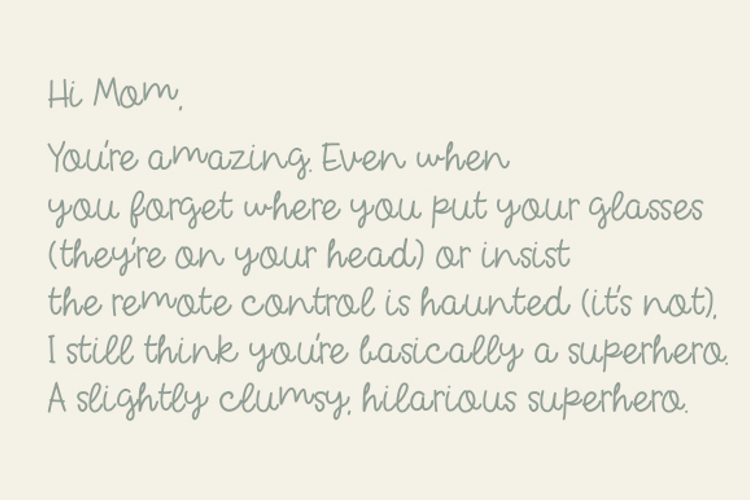
Notebooked Font
Introducing Notebooked Font , a mesmerizing new typeface inspired by the tender ache of love, the bittersweet beauty of heartfelt memories, and the timeless art of storytelling. Designed for dreamers, romantics, and creatives who wear their hearts on their sleeves, Notebooked is more than just a font—it’s an emotional journey. With its graceful curves, delicate imperfections, and nostalgic charm, this font captures the raw essence of sentimentality, making it perfect for projects that tug at the heartstrings.
The Essence of Notebooked Font
Notebooked Font is crafted to evoke deep emotions and timeless romance. It’s the typographic embodiment of a love letter—personal, intimate, and unforgettable. Whether you’re designing something that celebrates love, longing, or cherished memories, Notebooked delivers a touch of elegance and vulnerability. It whispers stories of the past while speaking directly to the soul, creating designs that feel alive with emotion.
Key Features
Graceful & Delicate Design :
Notebooked Font features soft, flowing lines that mimic the organic strokes of pen-on-paper. Its subtle imperfections add a human touch, making every word feel like a heartfelt confession.
Nostalgic Charm :
Inspired by handwritten notes and tear-stained pages, this font carries a sense of history and emotion. Its uneven edges and gentle curves evoke the warmth of memories long cherished.
Modern Yet Timeless Appeal :
While rooted in nostalgia, Notebooked Font strikes a perfect balance between modern minimalism and timeless romance. It’s versatile enough to resonate across generations, from vintage-inspired designs to contemporary creations.
Emotionally Resonant Characters :
Each letter in Notebooked Font has been thoughtfully designed to reflect the nuances of human emotion. From the slight tilt of an i to the gentle curve of a y , every character feels alive and deeply personal.
Versatile Use Cases :
Whether you’re crafting wedding invitations, poetry collections, or heartfelt branding, Notebooked Font adapts seamlessly to your vision. Its emotional depth makes it ideal for projects that require intimacy and authenticity.
Mood & Personality
Notebooked Font embodies the quiet ache of love and the tender beauty of memory. Imagine sitting by candlelight, penning a letter to someone dear, or flipping through the worn pages of an old journal—that’s the energy Notebooked Font brings to your designs. It’s romantic without being over-the-top, elegant without feeling distant, and sentimental without losing its authenticity.
Ideal Use Cases
Wedding Stationery :
Create invitations, vows, and thank-you cards that feel as personal and unique as your love story. Notebooked Font adds a touch of romance and sophistication to any wedding project.
Poetry & Literature :
Perfect for poets, authors, and storytellers, this font elevates your words and gives them the emotional weight they deserve. It’s like turning every line into a love letter.
Branding for Sentimental Brands :
From artisanal crafts to heartfelt gift shops, Notebooked Font helps brands connect with their audience on a deeper, more emotional level.
Personal Projects :
Whether you’re designing journals, scrapbooks, or keepsakes, Notebooked Font transforms your creations into treasured mementos.
Social Media Content :
Add a touch of romance to your Instagram captions, Pinterest boards, or TikTok overlays. Notebooked Font makes your digital presence feel warm and inviting.
Why Choose Notebooked Font?
In a world where communication often feels rushed and impersonal, Notebooked Font reminds us of the power of slow, deliberate expression. It’s not just a tool for design—it’s a way to connect with others and honor the moments that matter most. Whether you’re celebrating love, reflecting on memories, or simply sharing your story, Notebooked Font ensures your message is felt, not just read.
Let Your Words Speak from the Heart
With Notebooked Font, every word becomes a whisper, every sentence a confession, and every design a memory waiting to be cherished. Let its graceful curves and emotional depth inspire you to create work that truly resonates.
P.S.: Love isn’t always perfect—and neither is Notebooked Font. But that’s what makes it so real, so relatable, and so unforgettable.